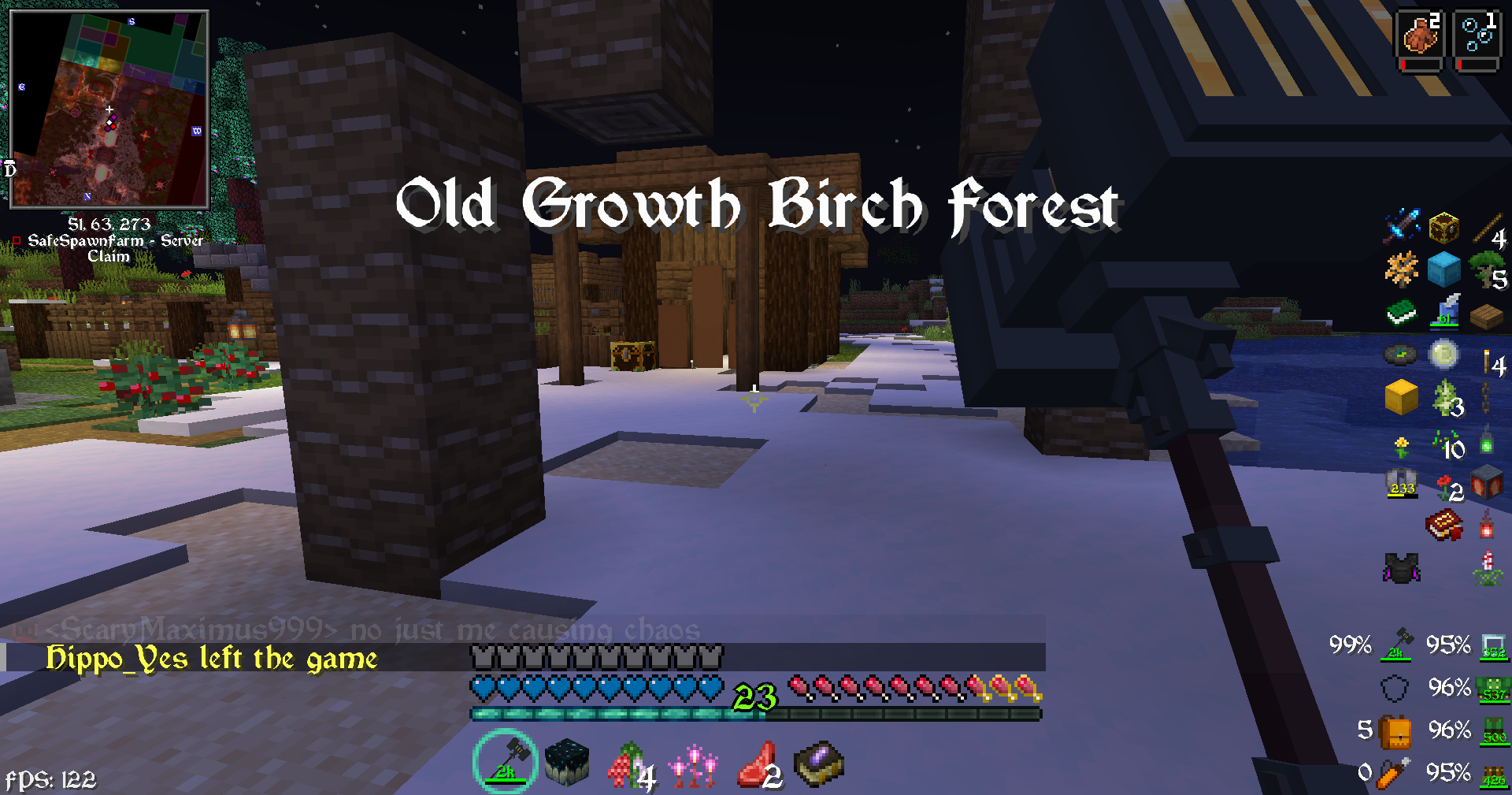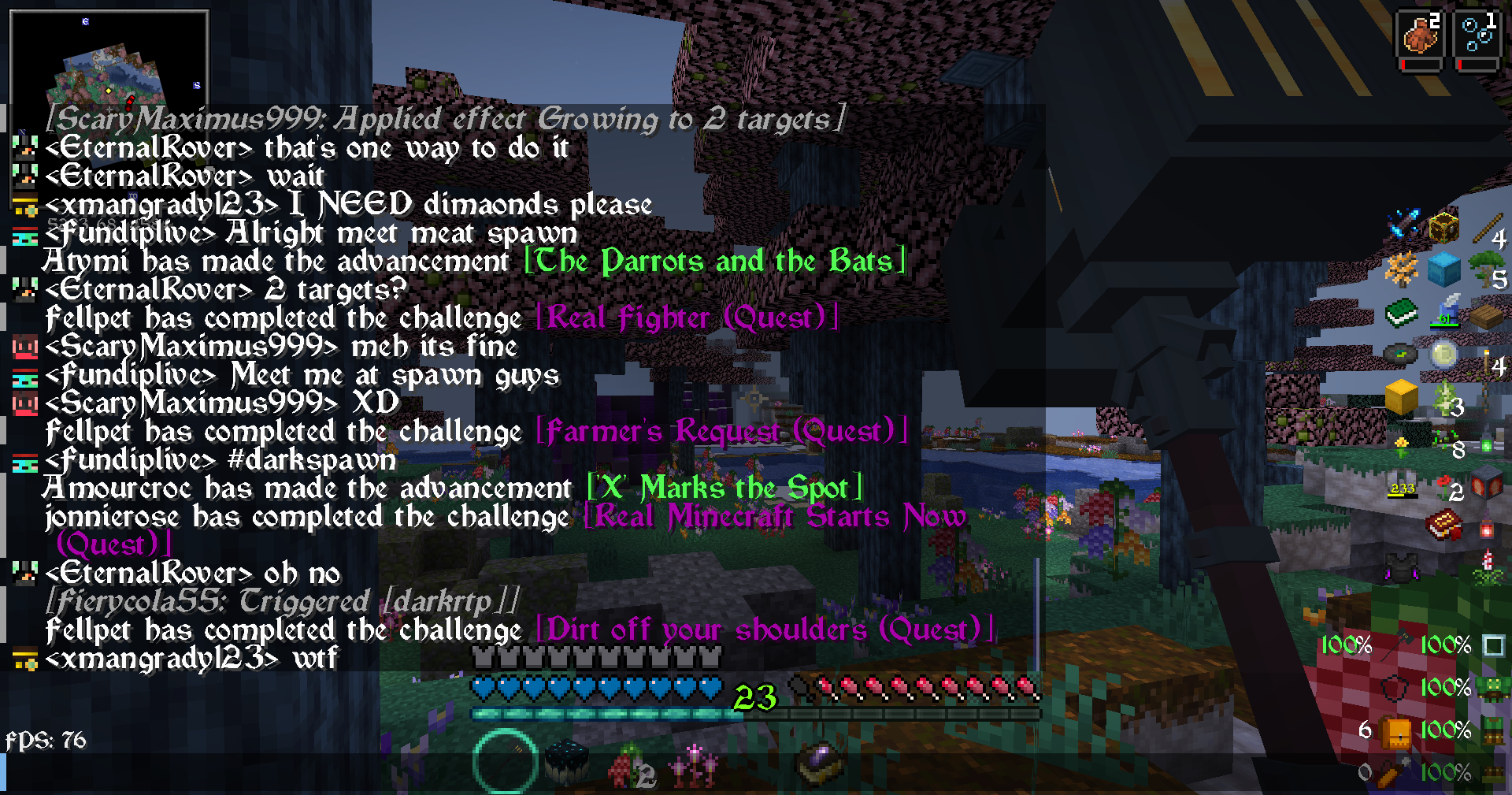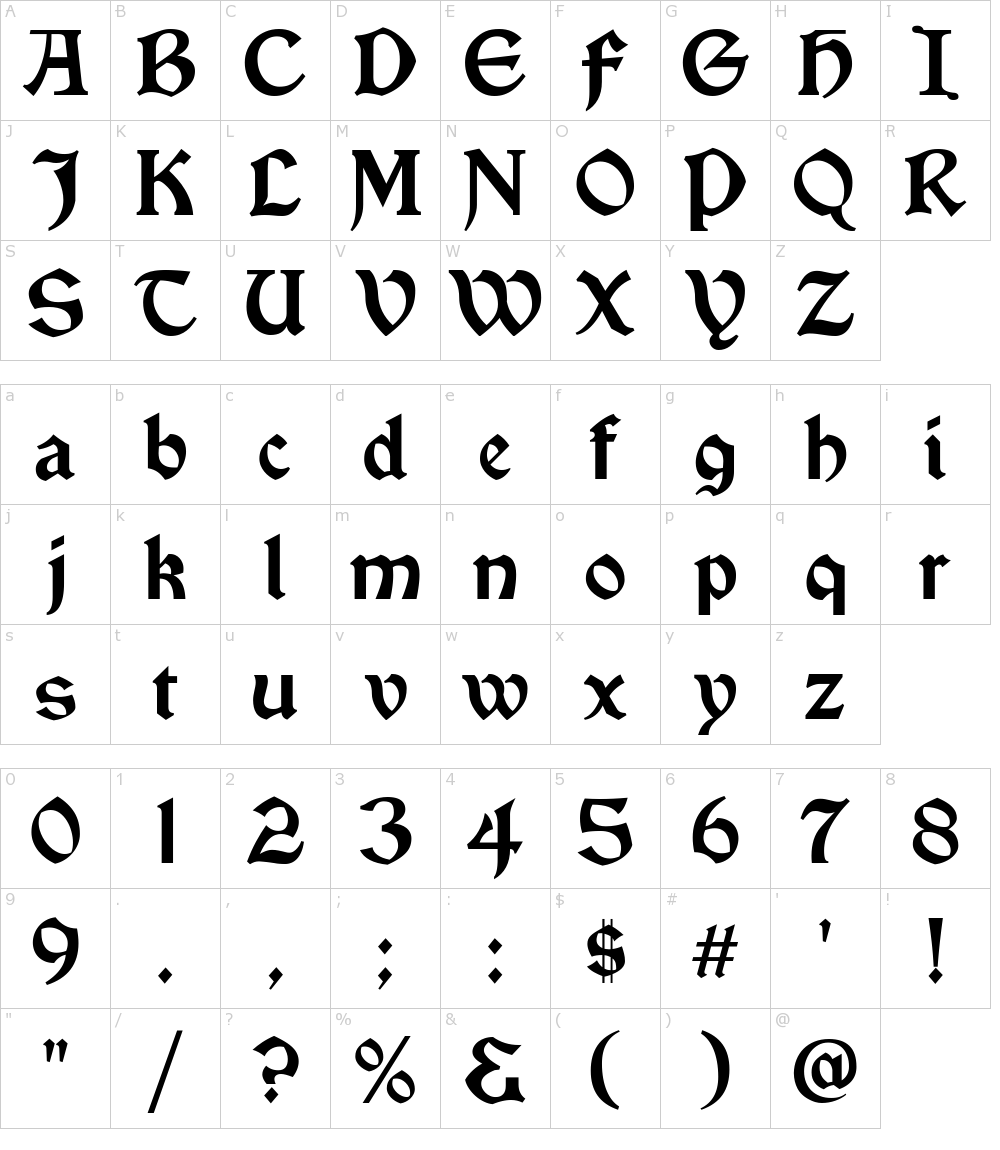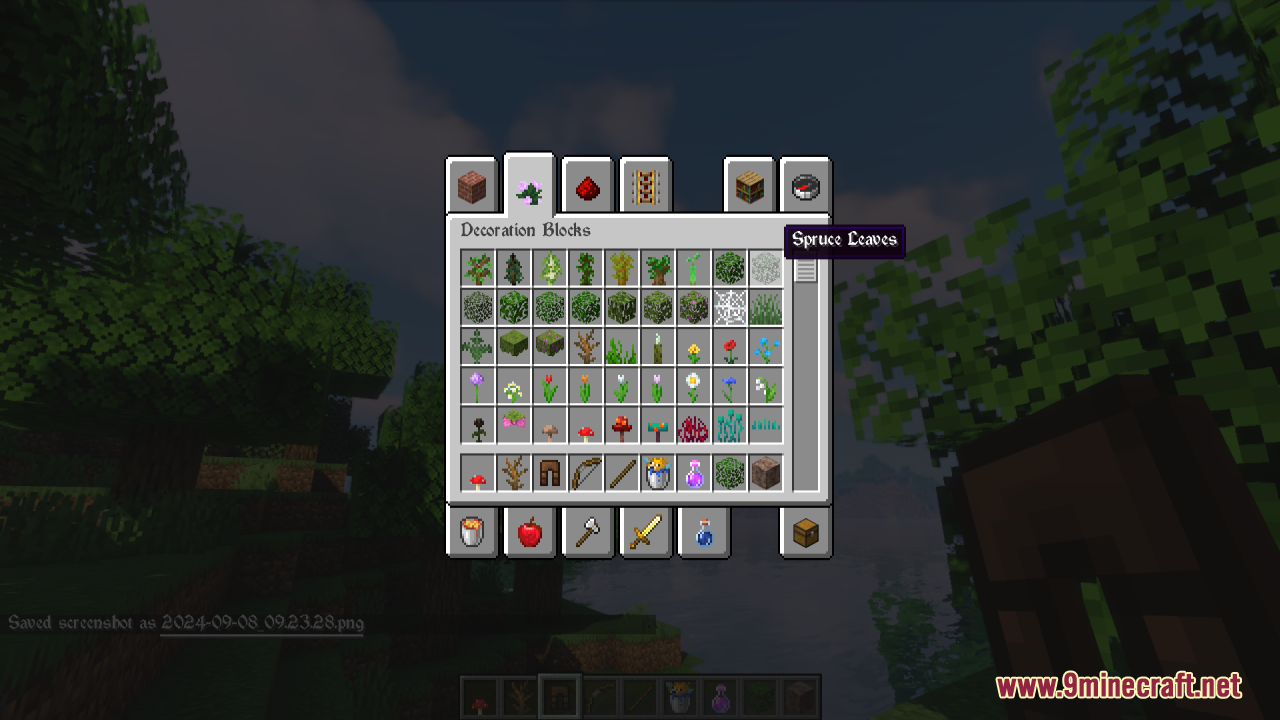
Gothic RPG Font Texture Pack is a resource pack distinguished by its gothic and medieval style. Initially designed for the DarkRPG modpack, it is based on the Vinque Font from Typodermic Fonts. The pack’s gothic and medieval style gives Minecraft texts a fresh look. The characters are carefully designed to offer a visual rendering that is both unique and pleasing to the eye. This style is particularly suited for worlds with a medieval or fantasy theme.